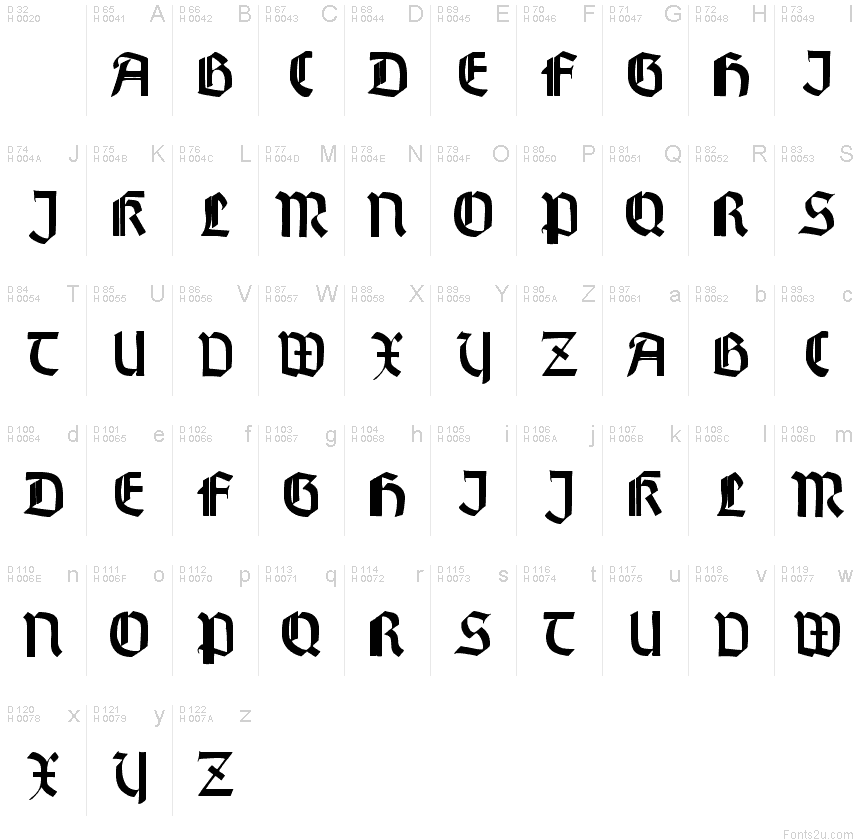
Wallau Zier Bold by Rudolf Koch of Typographer Mediengestaltung is a free decorative blackletter font with broad, sharply cut forms and a distinctly medieval bearing. Its dense strokes break into narrow openings, hooked peaks, and blade-like diagonals.
Medieval and fantasy subjects are the clearest match for historical game graphics, festival posters, and book covers shaped by its carved-emblem force. The same angular silhouette can lend a severe, old-world stamp to brewery packaging and metal merchandise, where the letters become part of the ornament rather than neutral text.